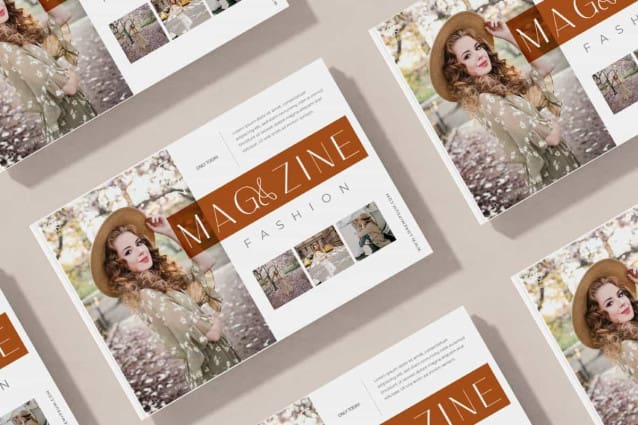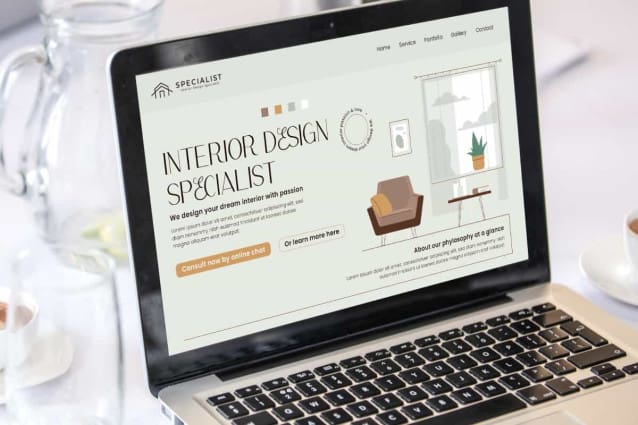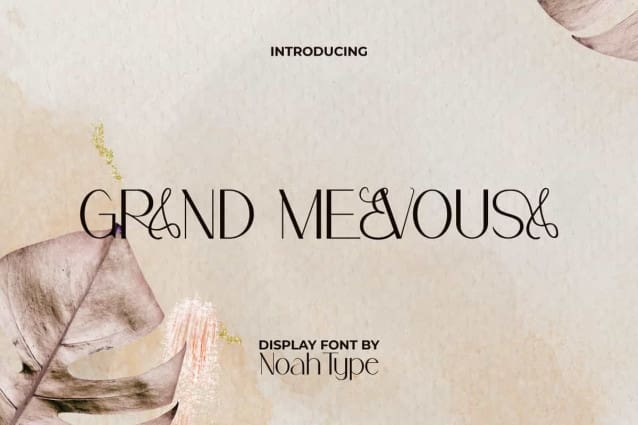
Grand Mevousa Font
Grand Mevousa Font is a beautiful and elegant sophisticated sans serif display font with luxurious touch. The elegance of this font can beautify your design with minimalist letter shapes. It will be perfect for any designs, such as brand image, cover, custom design, invitation, label, marketing material, menu, poster, product packaging, quote, signage, stationery, web, and many more!
Grand Mevousa Font includes full set of Uppercase and Lowercase Basic Characters, Numerals, Punctuation, and Symbol. This font also has Ligature characters with a script type which is very suitable when paired and also a perfect choice for many industries, such as accessories, advertising, art, beauty product, cafe, event or festival, fashion, furniture, photography, printing, publishing, restaurant, etc.